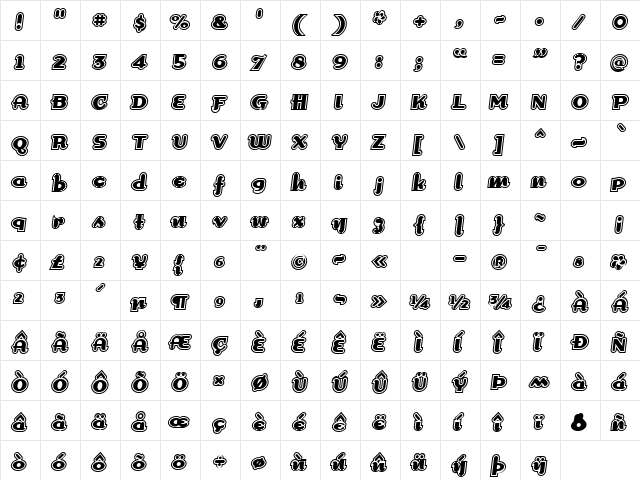
DogmaOutline Regular
Design Context for DogmaOutline Typeface
DogmaOutline is built around its visual character rather than neutral utility — its distinctive forms are designed to make an impression at display sizes.
Font Pairing: Pair with a clean neutral sans-serif for body copy to let DogmaOutline's character lead without overwhelming the composition.
Pro Tip: Treat DogmaOutline as the centrepiece of your typographic hierarchy. One strong heading set in a decorative face can carry an entire layout.